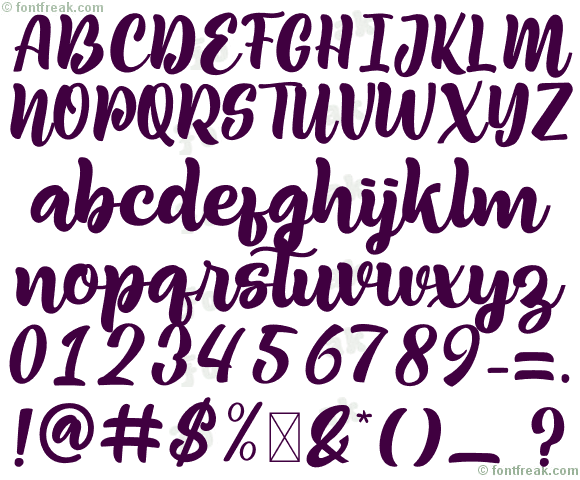
Beabella
About Beabella
Beabella is a captivating script font created by Eknoji Studio, characterized by its elegant and fluid design. This font falls into the category of handwritten script, offering a natural and organic feel that brings warmth to any design project. The strokes of the Beabella font exhibit a medium weight with graceful curves and a slight contrast that adds depth and personality. The spacing is well-considered, allowing for readability while maintaining a stylish flair, making it suitable for various applications.
The decorative elements in Beabella, such as its swashes and playful loops, enhance its artistic charm, making it ideal for a range of creative uses. This font shines in contexts like wedding invitations, where its romantic style can set the tone for a special day. It is also perfect for branding projects, such as logo design for boutique shops or artisanal products, adding a touch of sophistication. Additionally, Beabella works beautifully for restaurant menus, providing an inviting feel that can attract diners, as well as in social media graphics where content creators seek to engage their audience with visually appealing text.
The target audience for Beabella includes graphic designers looking for unique typefaces to elevate their projects, small business owners who want to add a distinctive touch to their branding, and content creators seeking to enhance their digital presence with stylish typography.
What truly sets the Beabella font apart is its ability to blend elegance with approachability, making it versatile for both formal and casual designs. If you’re looking to add a charming, handwritten touch to your work, the Beabella font free download is an excellent choice that will elevate any project you undertake.